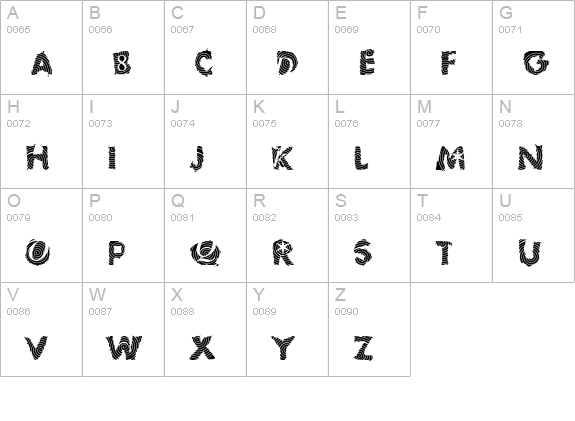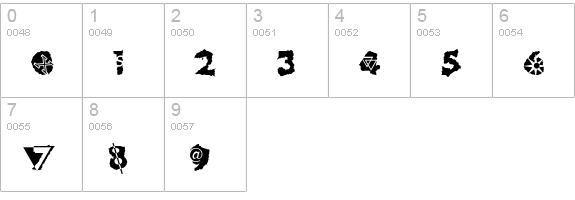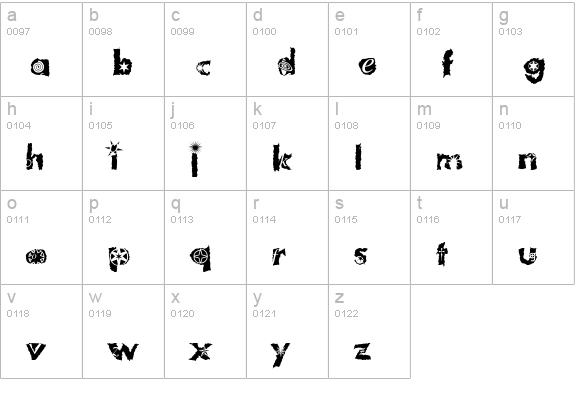
TomFool PlumLoco Font Details
Introducing the delightful and whimsical TomFool PlumLoco font! This font is a true treasure for those seeking a touch of playfulness and a dash of eccentricity in their designs. With its unique combination of bold and quirky letterforms, TomFool PlumLoco is sure to captivate the imagination and add a splash of fun to any project. Designed with attention to detail, this font showcases a delightful mix of curvaceous lines and unexpected angles, creating a harmonious balance between elegance and spontaneity. Each letter is carefully crafted to evoke a sense of joyful energy, making it an ideal choice for projects that require a lighthearted and whimsical touch. What makes TomFool PlumLoco even more appealing is that it is freely available to download at FontsMarket.com. Yes, that's right – you can enjoy the endless creative possibilities of this font without having to spend a dime! Whether you're a professional designer or a hobbyist, this font is a wonderful addition to your typography collection. TomFool PlumLoco is perfect for a wide range of design projects, including greeting cards, invitations, social media graphics, branding, packaging, and so much more. Its versatility knows no bounds, allowing you to bring a sense of charm and playfulness to every piece you create. So why wait? Dive into the world of TomFool PlumLoco and let your imagination run wild. Download this font for free at FontsMarket.com and unlock an unlimited realm of creative possibilities. Embrace the whimsy, embrace the fun, and let TomFool PlumLoco breathe life into your designs like never before.